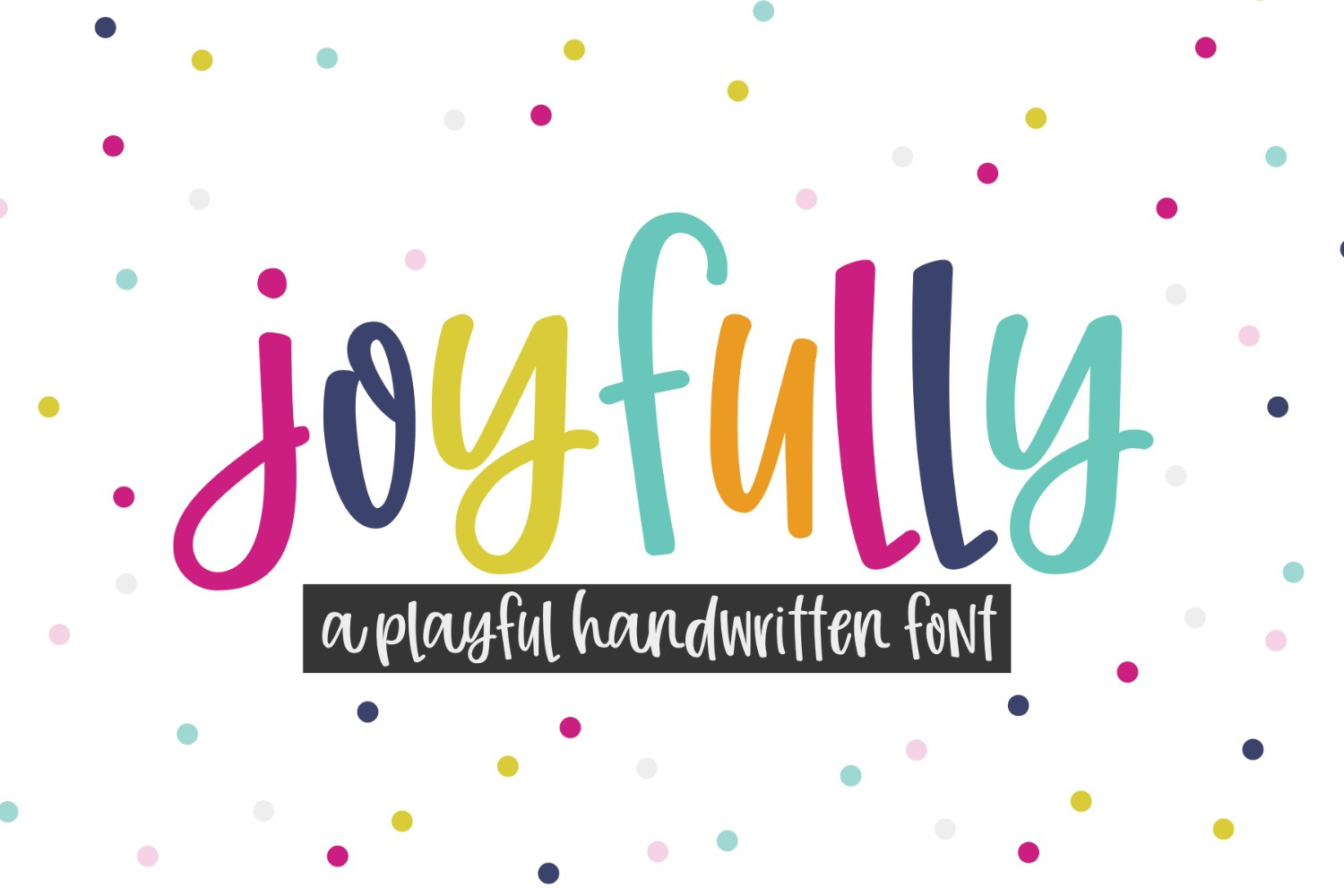
Joyfully Handwritten Font
Joyfully is a fun, playful handwritten font! It is perfect for youthful, fun designs, and it is a perfect font for Cricut and Silhouette crafters, as I've taken extra time to make sure the font is as smooth as possible.